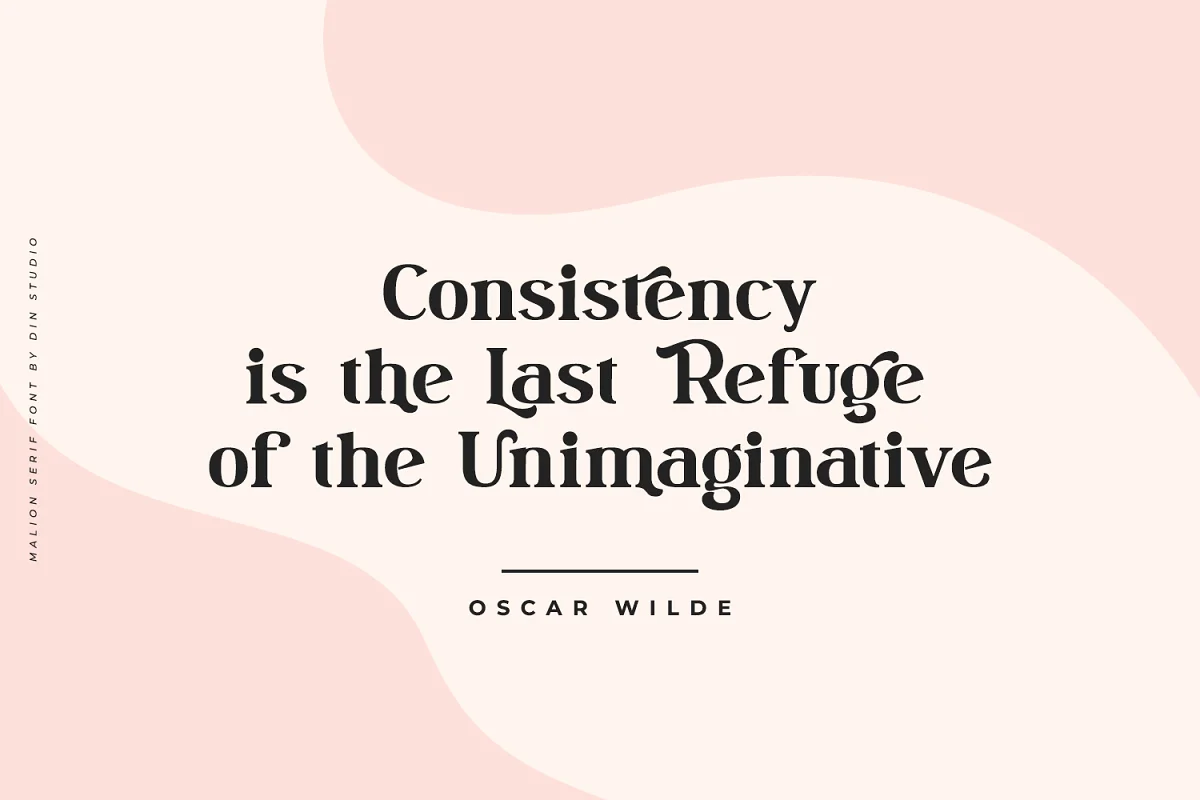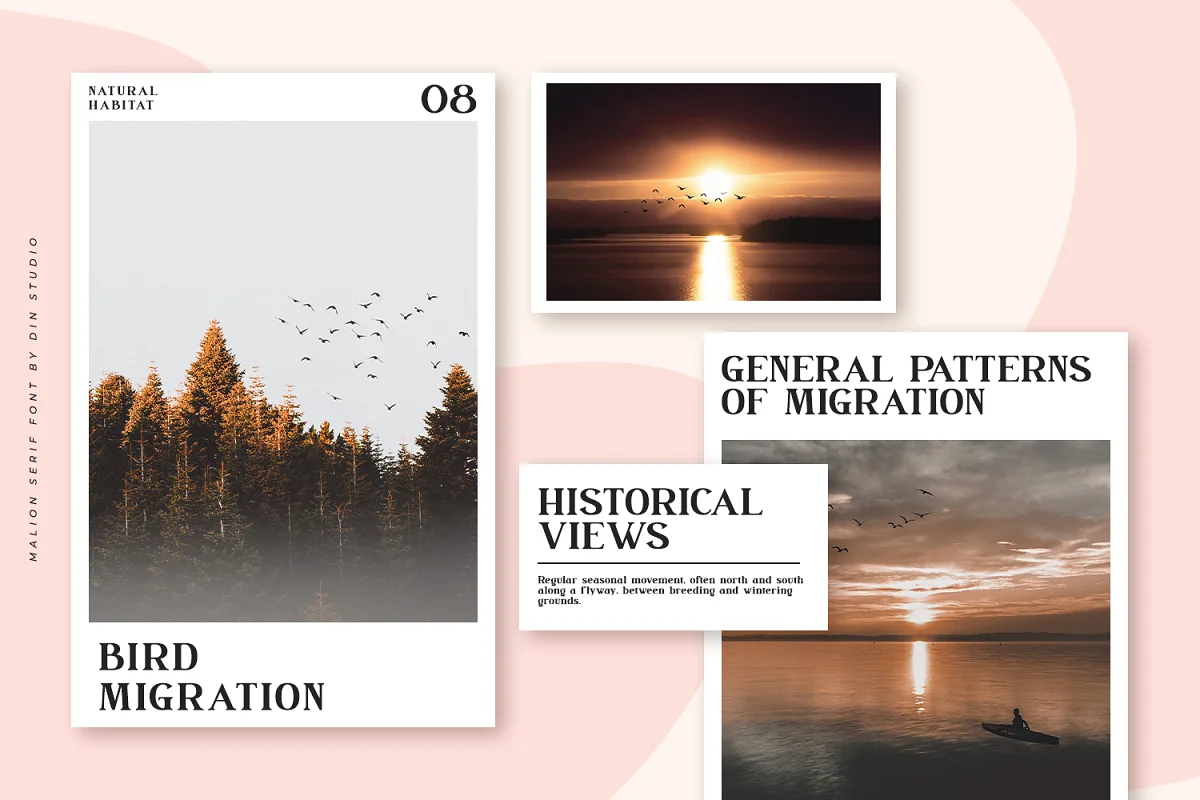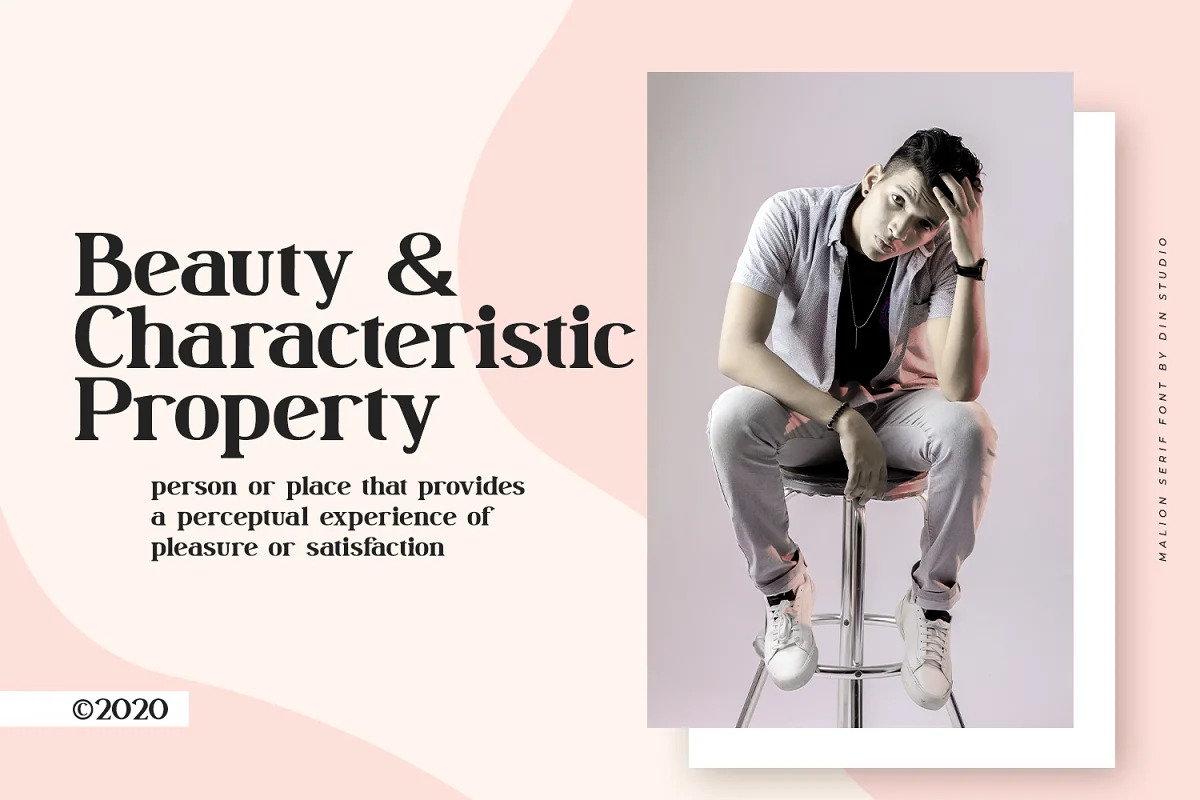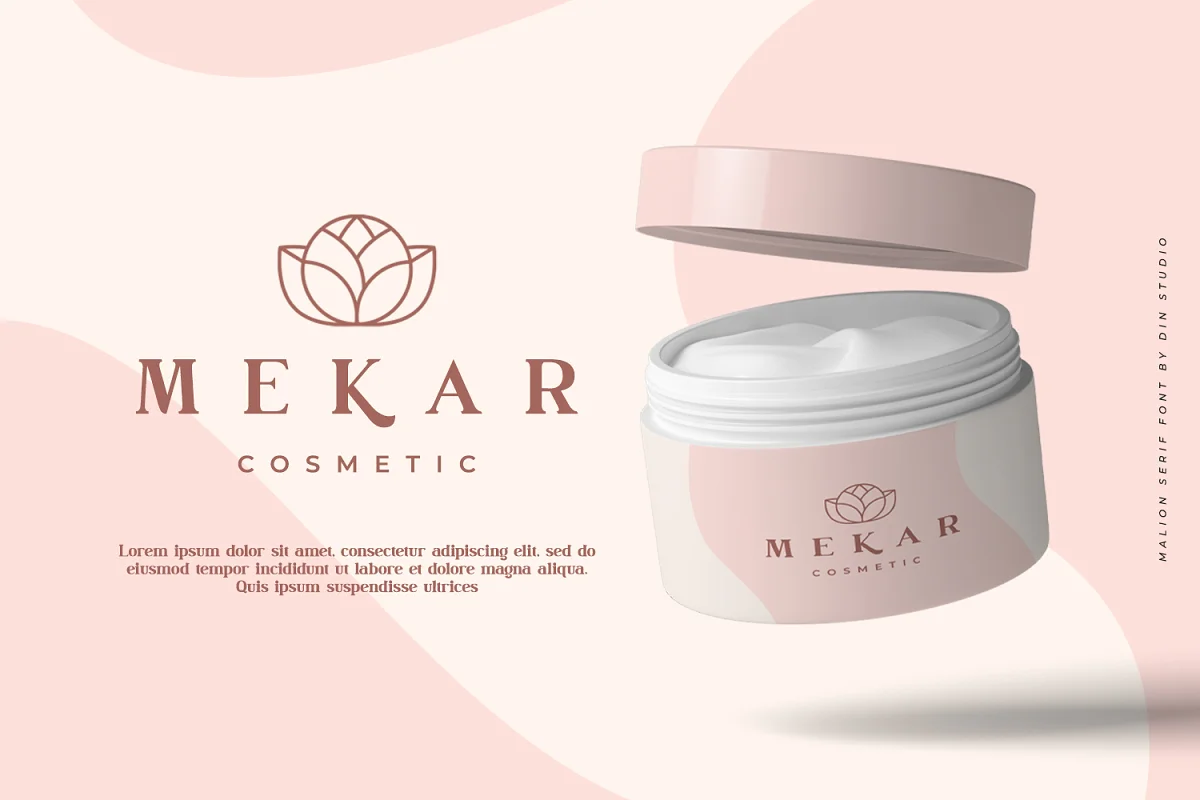
About the Malion Modern Display Serif Font
Malion font is a modern and clean display font. The design of a typeface will make your design more beautiful and inspiring.
This font will suitable for any project, like branding, print template, logo and etc.
- Accents (Multilingual characters)
- 64 Alternates
- Numerals and Punctuation (OpenType Standard)